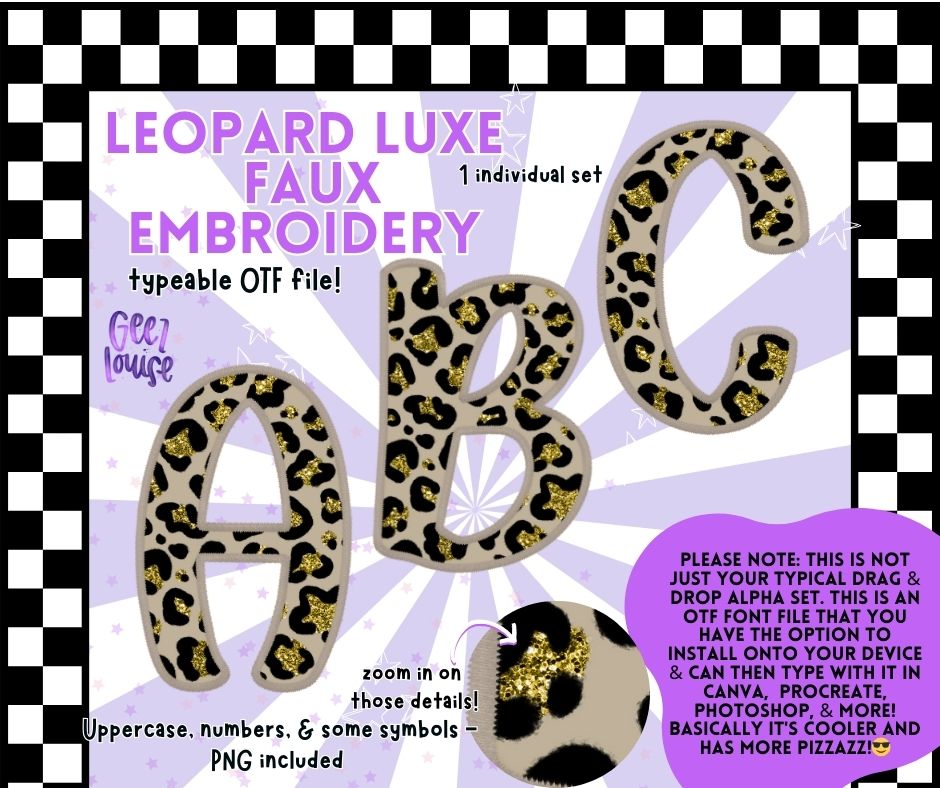
Leopard Luxe Faux Embroidery - Glam OTF Font + PNG Alpha Set
Say hello to Leopard Luxe, the bold and bougie faux embroidery font that’s giving golden glitter realness and fierce feline energy 🐆✨ Whether you’re designing shirts, branding assets, or party graphics, this font adds instant edge and elegance.
✔️ Faux embroidery stitched look
✔️ Luxe leopard spots with gold glitter accents
Perfect for: boutique branding, bold shirt designs, blingy birthday gear, and digital decor that needs main character energy 💛